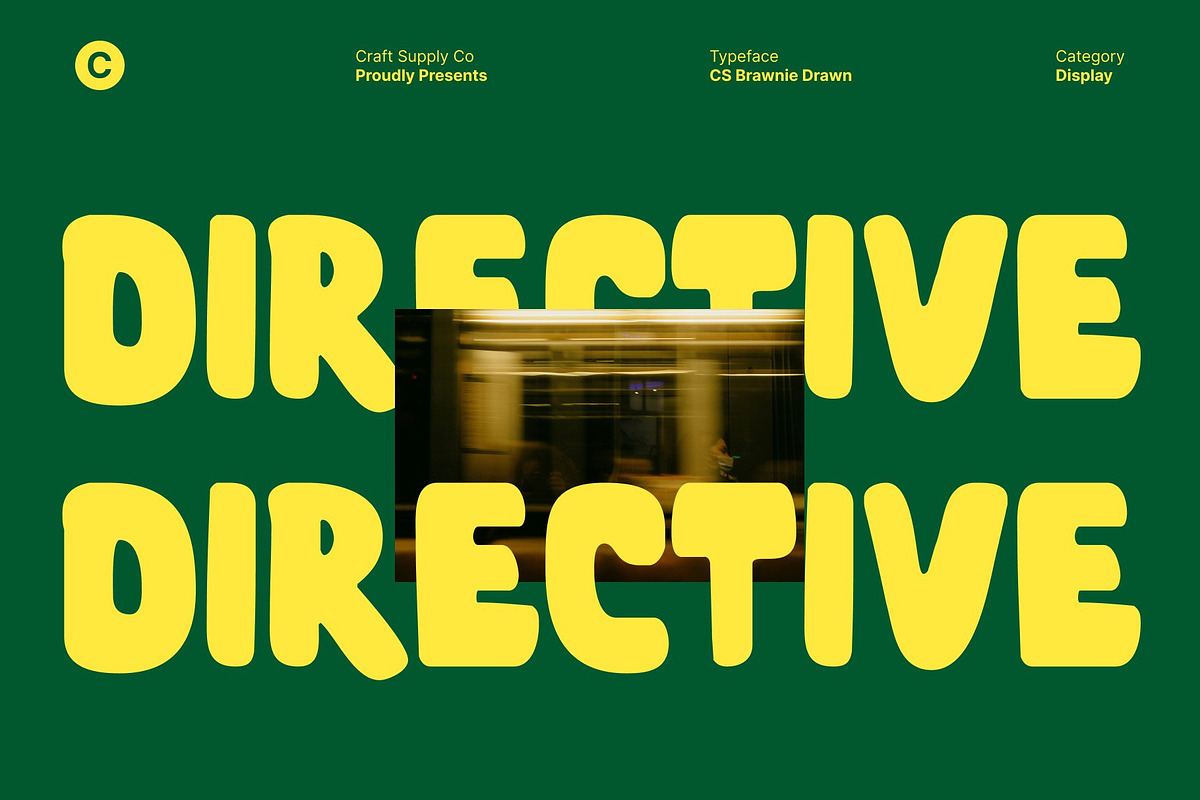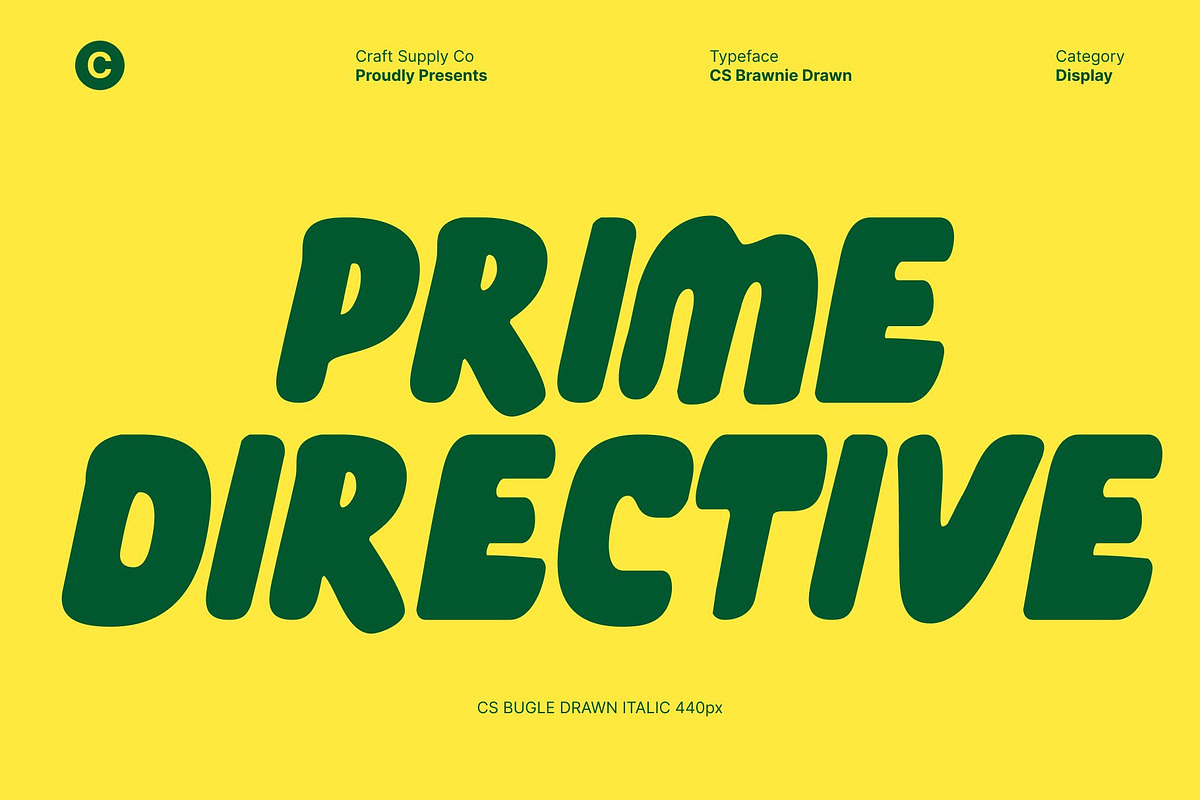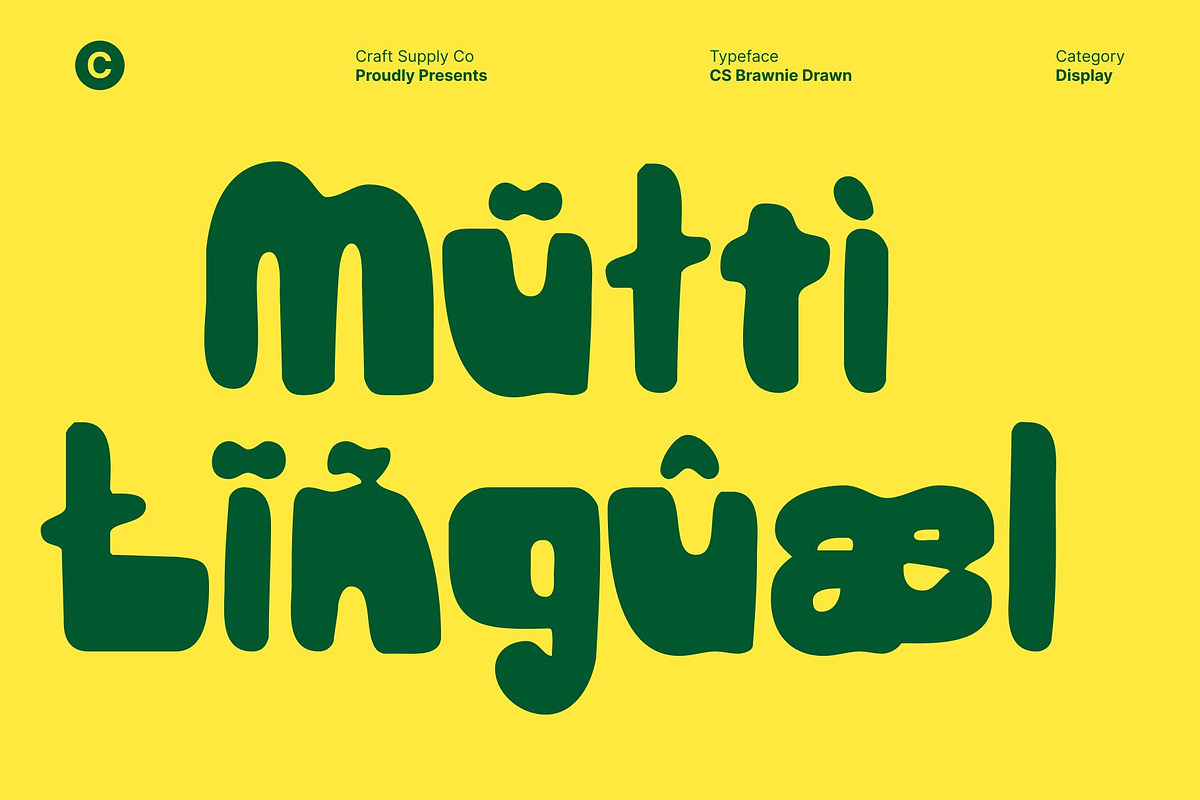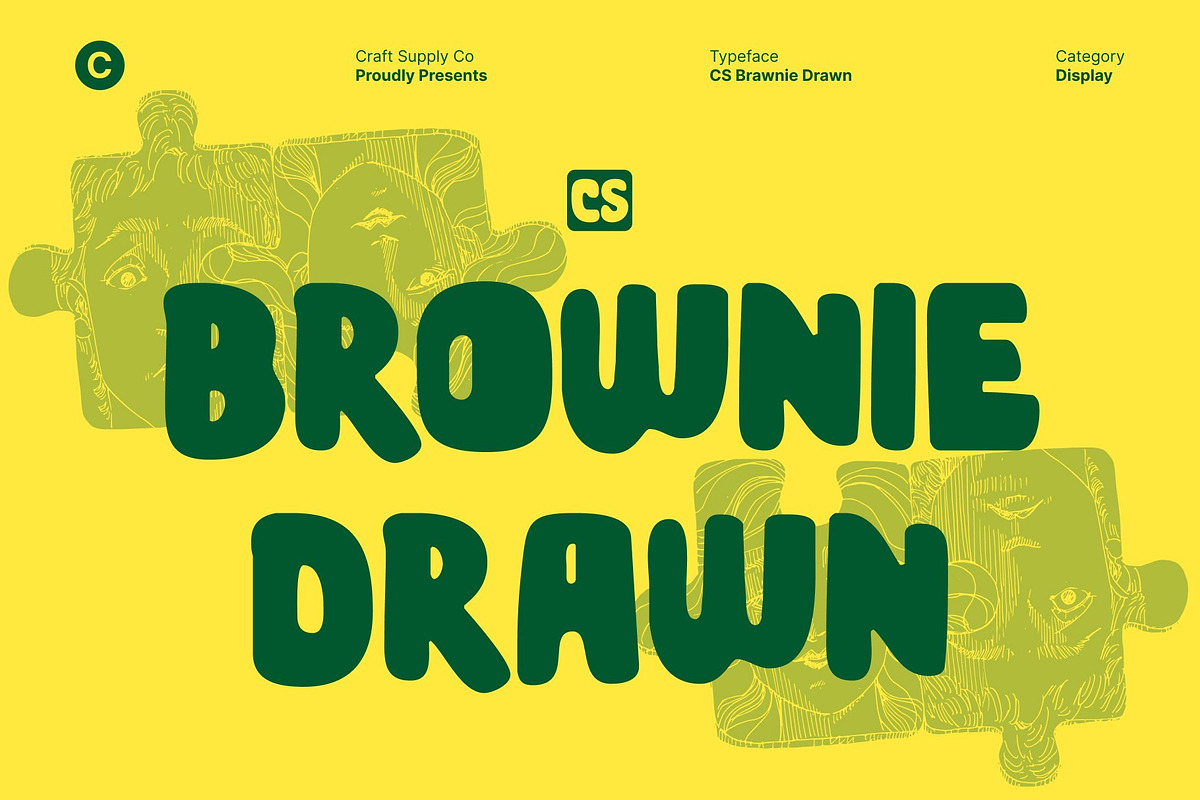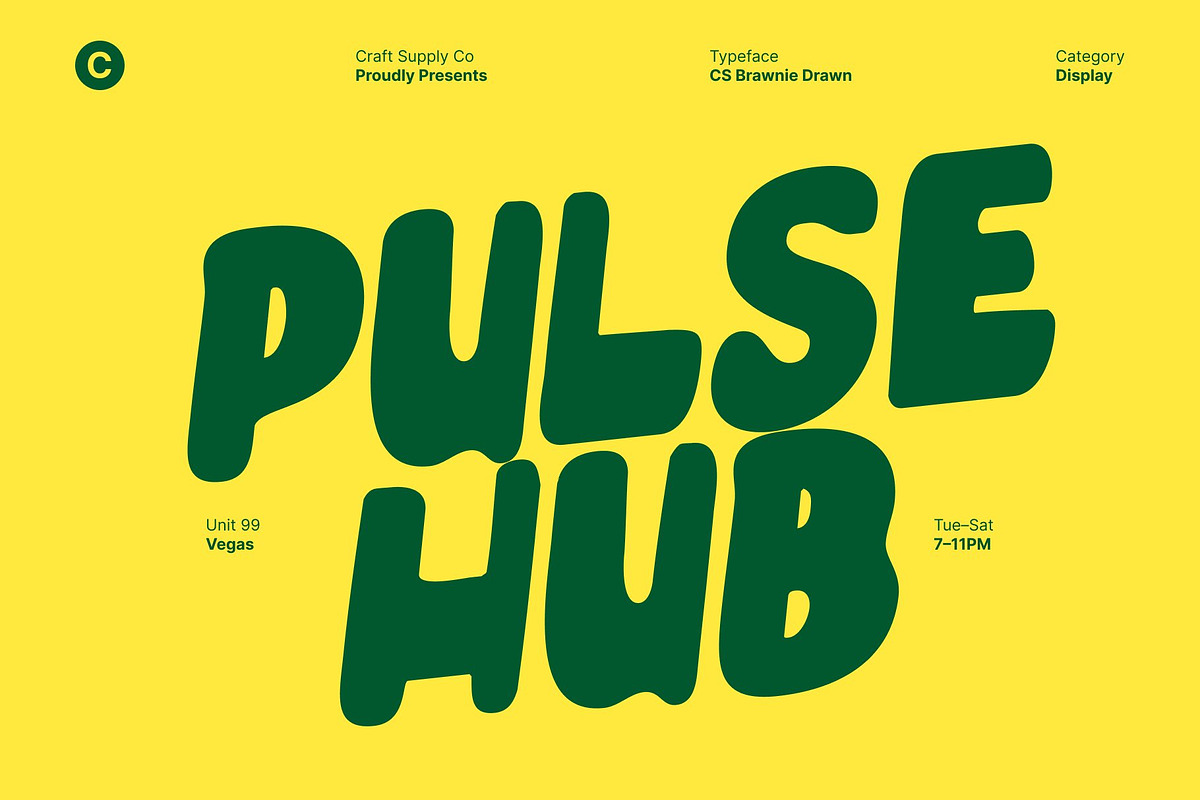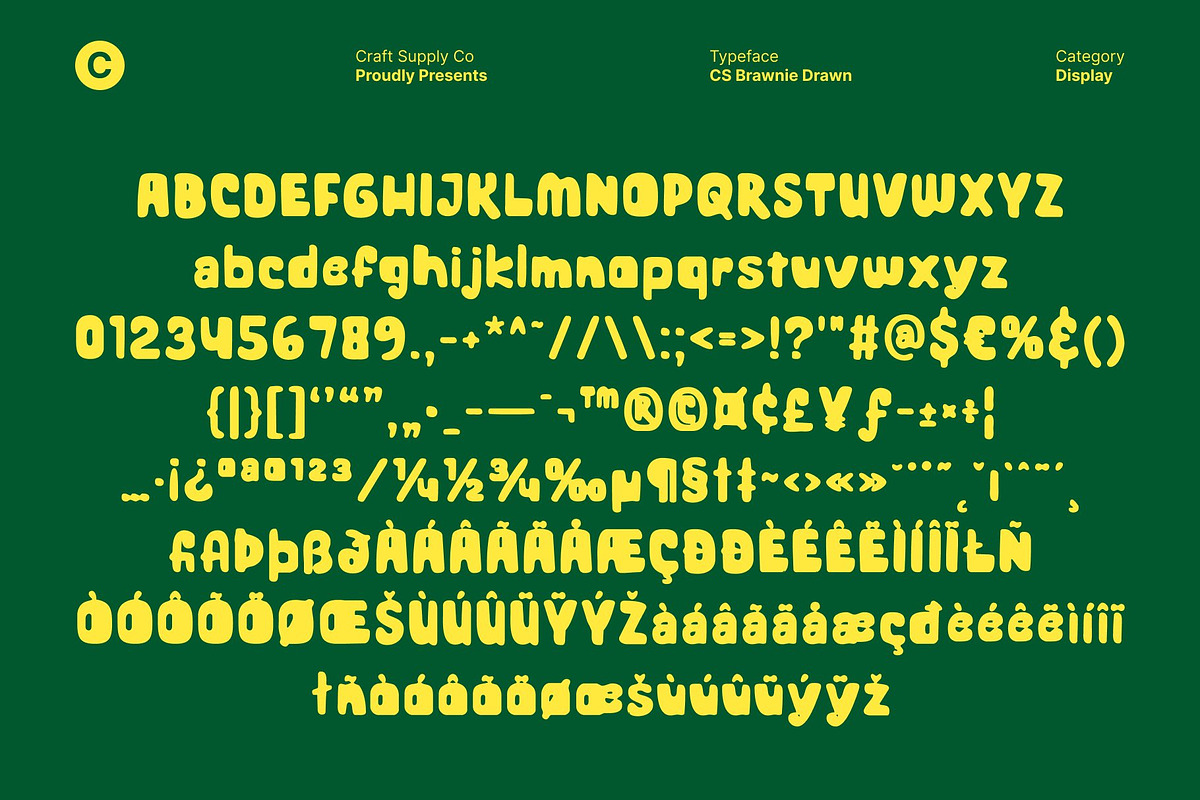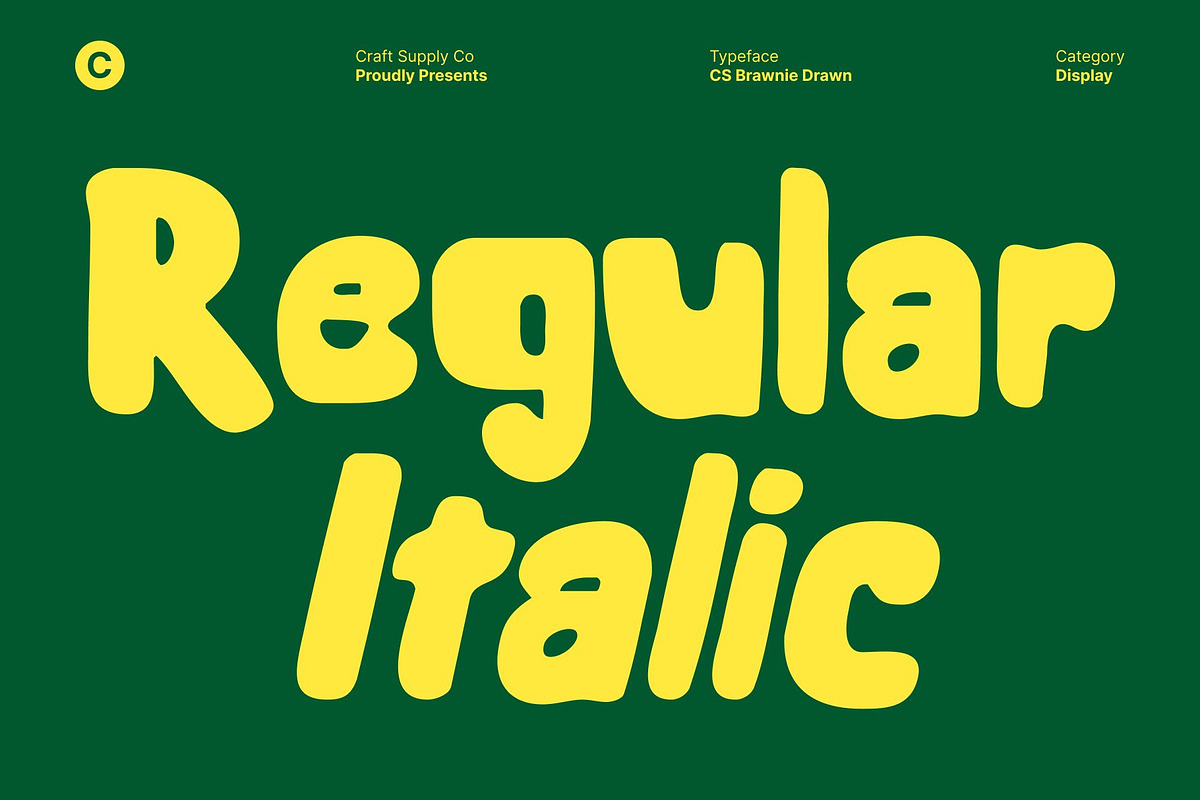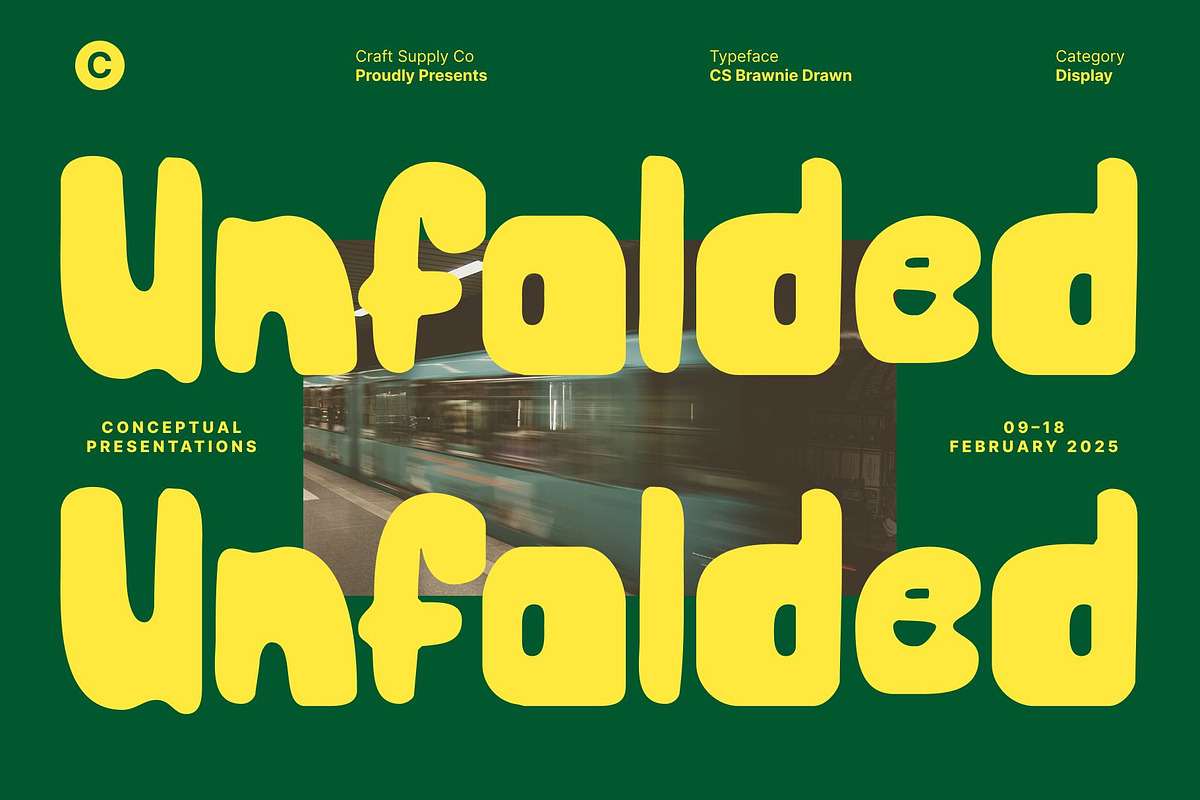
CS Brownie Drawn
CS Brownie Drawn – Funky and Playful Display Font
A Bold Expression of Joy and Whimsy This is a modern display font that delivers boldness wrapped in charm. Its expressive letterforms are enhanced with a hand-drawn texture, giving the font a lively, organic feel. The playful construction instantly grabs attention while radiating cheerful, friendly energy that brings designs to life.
Soft Shapes with Hand-Drawn Personality Defined by rounded edges, soft strokes, and imaginative curves, this font feels warm and approachable. The drawn effect introduces subtle imperfections that add movement and character, making each letter feel animated and full of personality. This balance of structure and spontaneity creates a visual rhythm that’s fun, engaging, and easy on the eyes.
Perfect for Joyful and Youthful Designs This shines in projects that celebrate fun and creativity. It’s an excellent choice for children’s books, toy packaging, classroom posters, birthday invitations, playful branding, or cheerful social media graphics. Its friendly appearance resonates naturally with youthful audiences while remaining visually appealing for all ages.
Typography That Smiles Back More than just playful, this font turns typography into an experience. Its funky shapes and hand-drawn charm invite curiosity, laughter, and imagination making it the perfect font for designs that want to feel happy, expressive, and full of creative spirit.